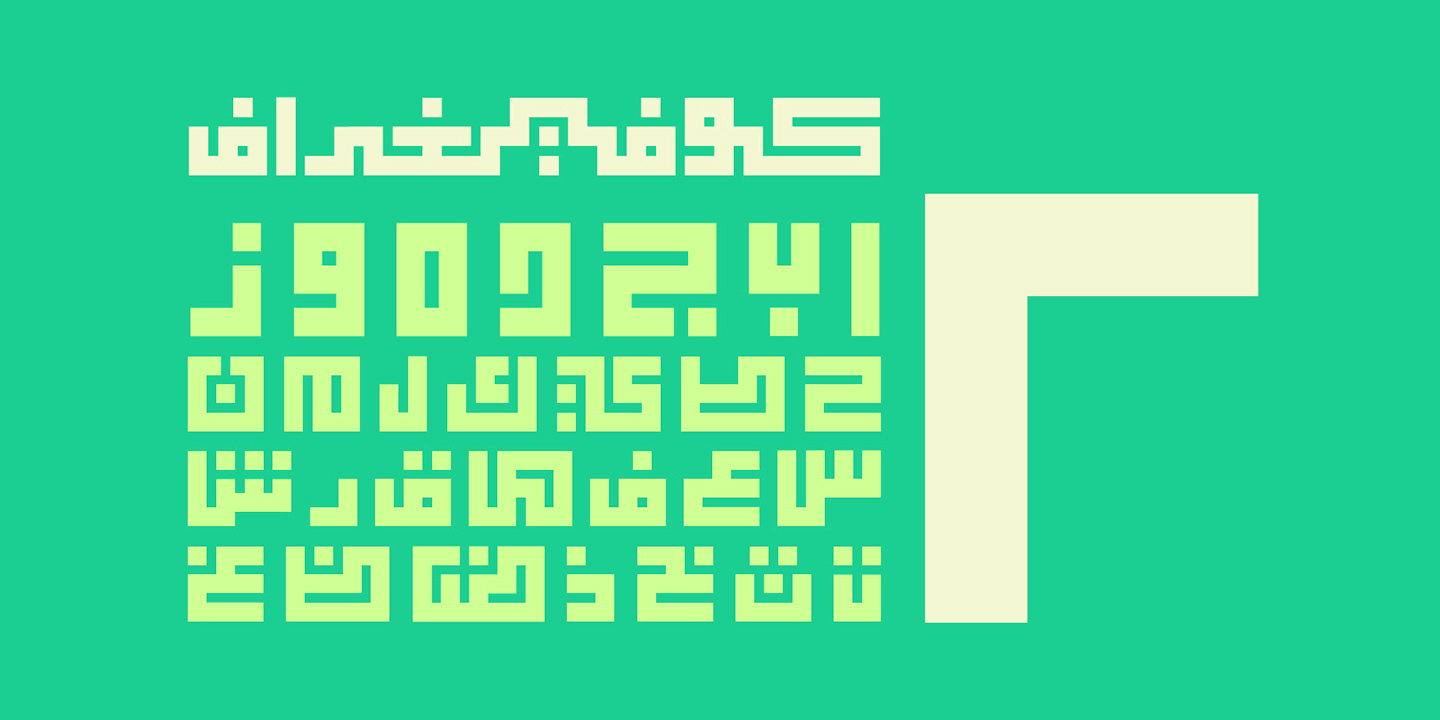
Kufigraph
Kufigraph is an exotic font family. This typeface has three styles and was published by Mostafa Abasiry.
Kufigraph is an Arabic display typeface characterized by its distinctive geometric design. Departing from the conventional structure of Arabic script, Kufigraph’s baseline is positioned centrally between the ascenders and descenders. Certain letters have been entirely reimagined to align with this new framework, resulting in a one-of-a-kind typing experience. Available in three weights—light, regular, and bold—Kufigraph suits all creative projects including web, print and mobile applications.